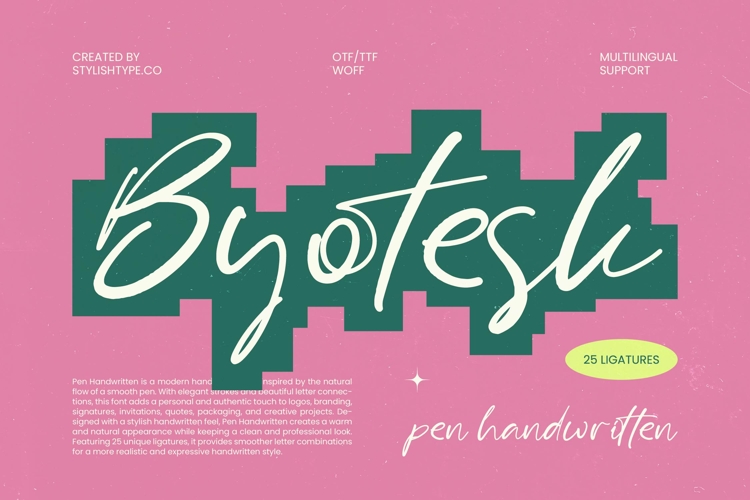
Byotesk - Pen Handwritten Font
Elevate your design narrative with a touch of organic elegance through Byotesk - Pen Handwritten Font. This modern script typeface captures the natural flow of a smooth pen, offering elegant connections that bring an authentic touch to every composition. Its fluid strokes create a warm and natural appearance, ensuring your creative projects stand out with a clean and professional look that feels both and high-end.
Experience unparalleled realism with advanced typographic features engineered for perfection. Byotesk - Pen Handwritten Font includes 25 unique ligatures, providing smoother letter combinations for a more realistic and expressive handwritten style. These thoughtful details transform standard digital text into a bespoke signature aesthetic, making it a premier choice for designers seeking visual variety and artistic depth without sacrificing readability.
Expand your creative reach across borders with ease using a tool designed for the global stage. With its extensive multilingual support, Byotesk - Pen Handwritten Font adapts seamlessly across global markets, making it incredibly versatile for international projects. By providing broad character support, Byotesk - Pen Handwritten Font ensures your brand message remains consistent and impactful no matter where your audience is located.